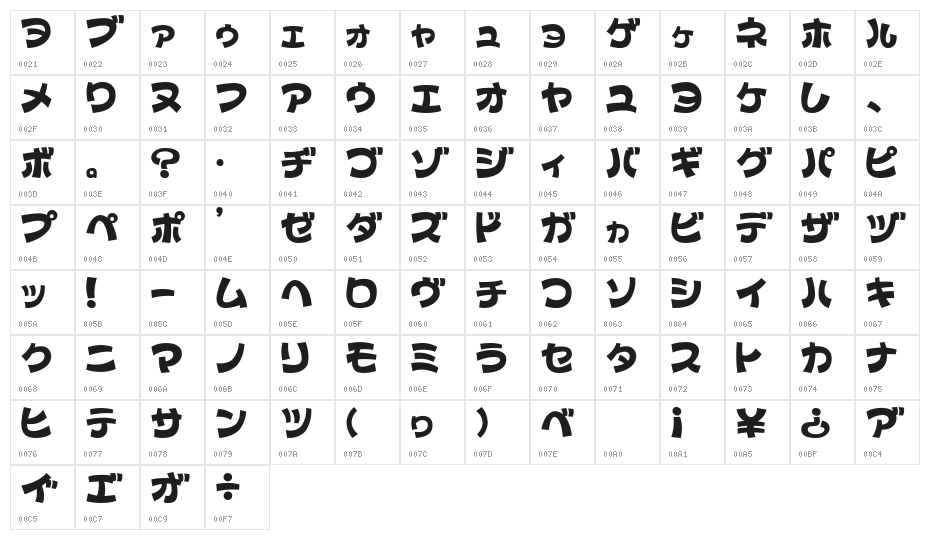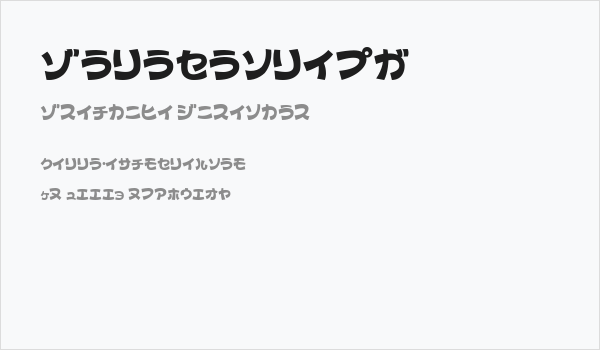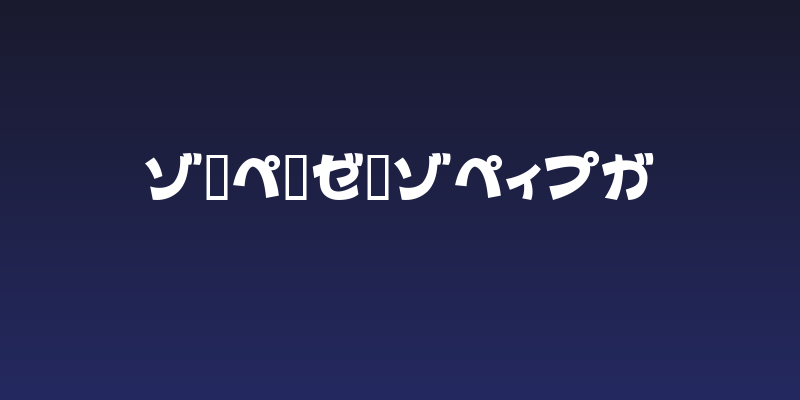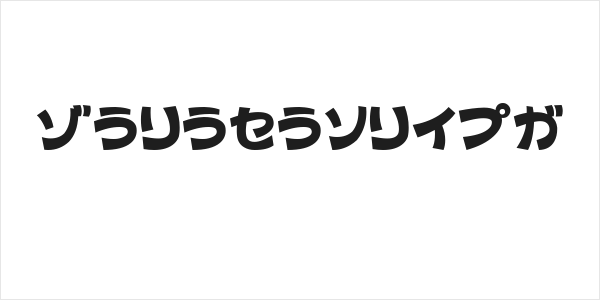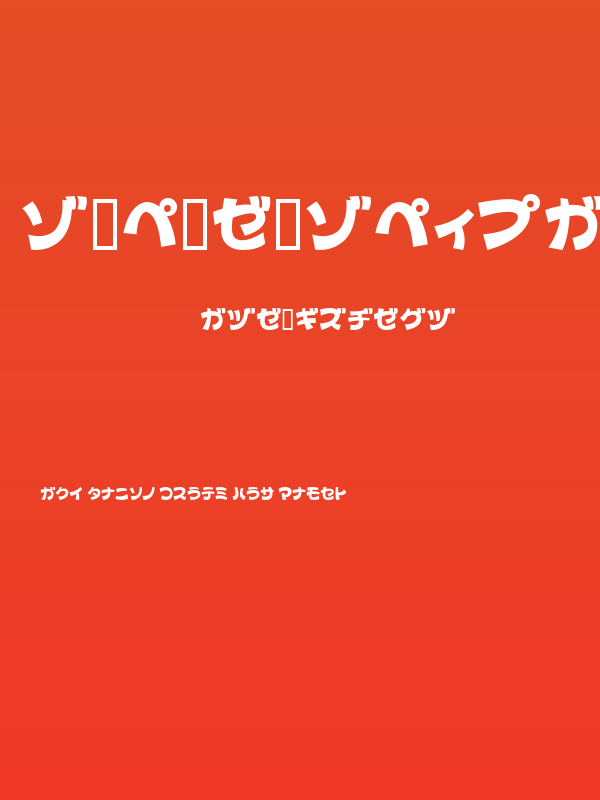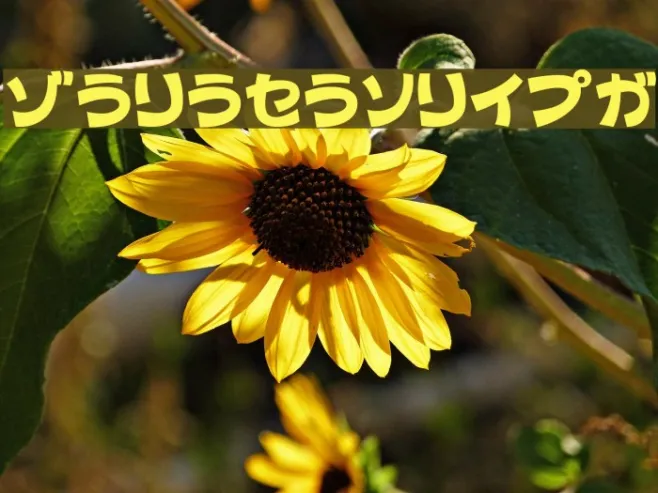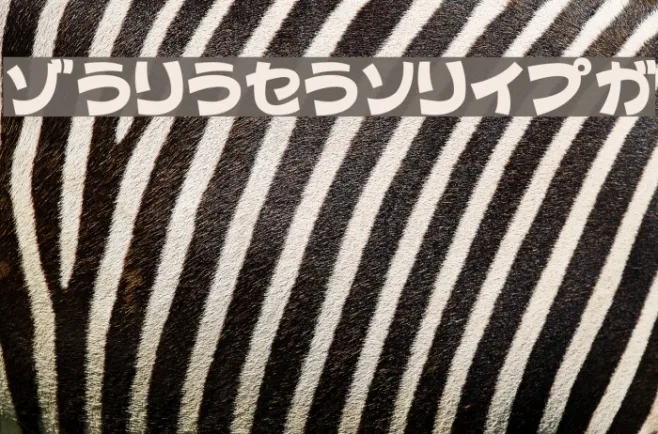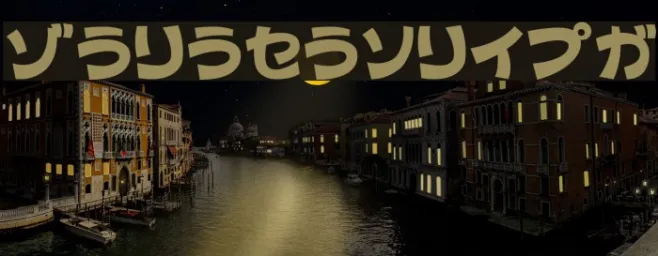
ColopocleKT Font
ColopocleKT Description
This font features bold, rounded characters with a playful and dynamic appearance. The strokes are thick and consistent, giving it a strong presence. The characters have a slight tilt, adding a sense of movement and energy. The overall design is modern and eye-catching, making it suitable for attention-grabbing headlines or creative projects. The spacing between characters is tight, enhancing the compact and cohesive look of the text.
| Proposed Projects | Ideal for children's books, playful branding, posters, and creative advertising. |